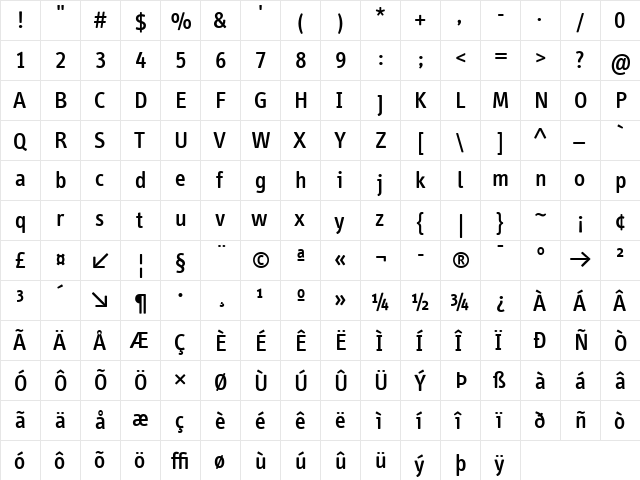
Info Medium
| Foundry | Erik Spiekermann, Ole Sch\ fer, . Published by FontShop International FontFont release |
Design Context for Info Typeface
Info offers clean, dependable letterforms without strong stylistic allegiance, making it a practical choice for designers who need flexibility.